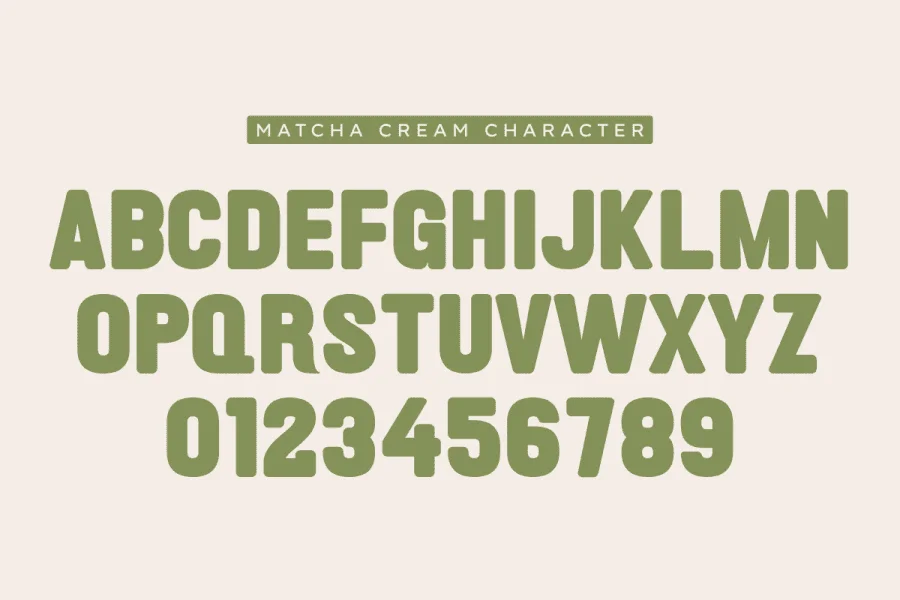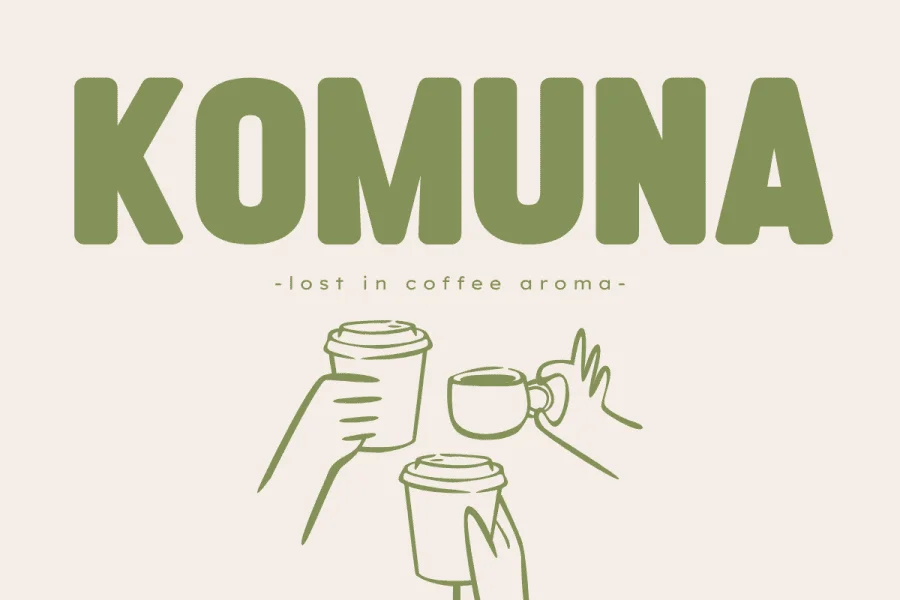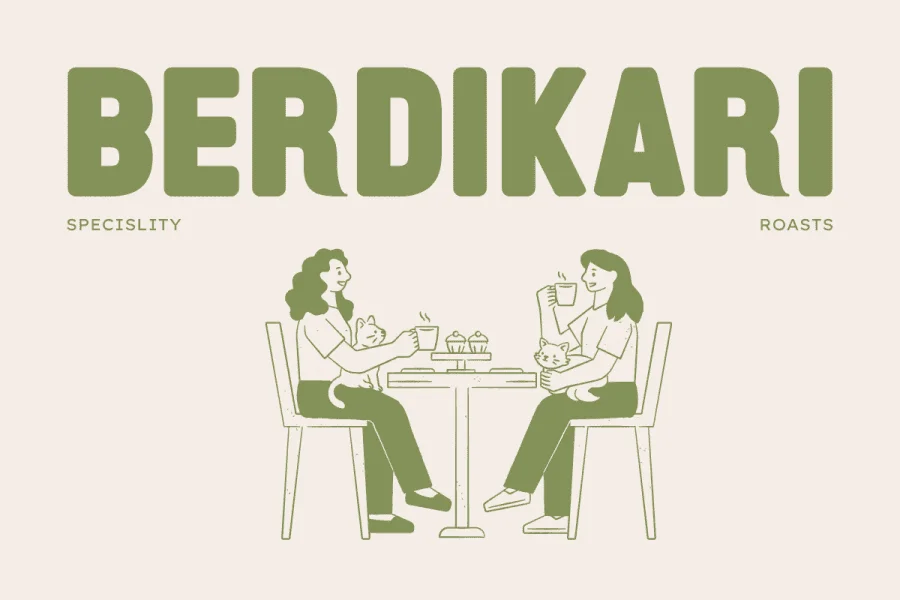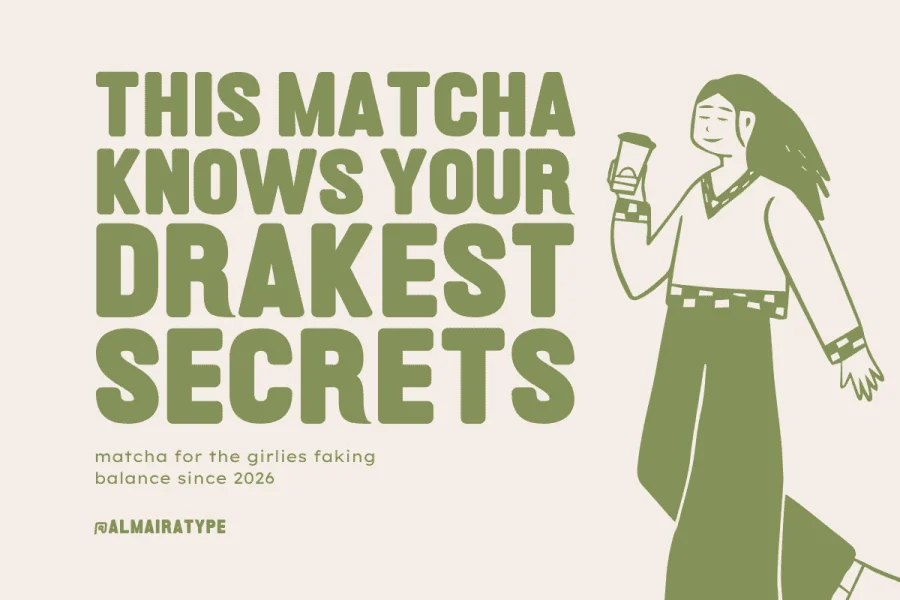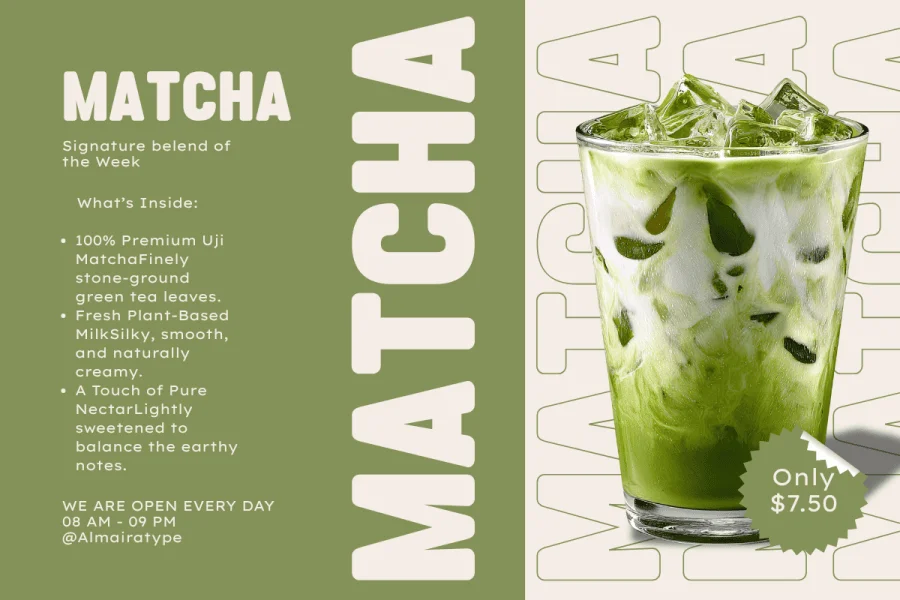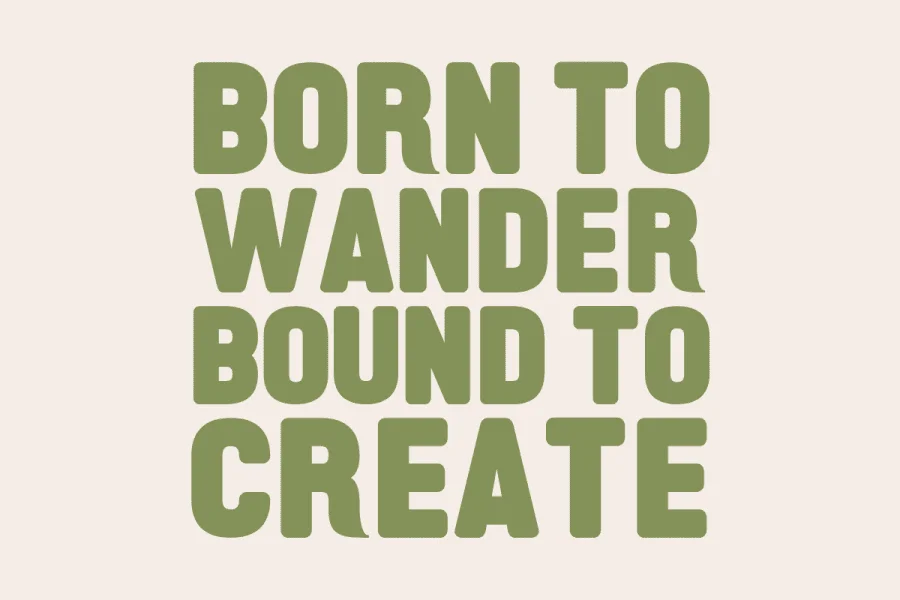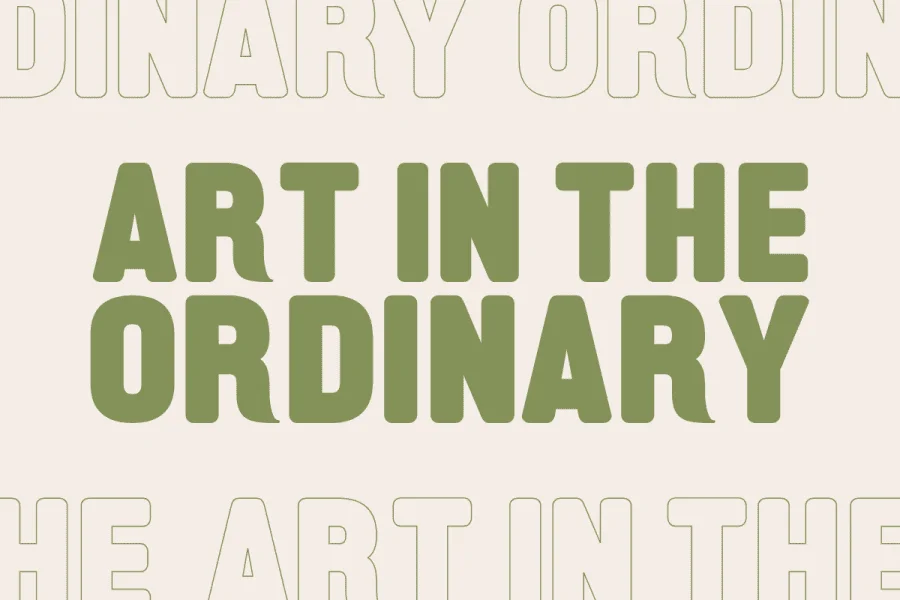
Matcha Cream is a bold, condensed sans-serif typeface that blends retro warmth with a solid, structural presence. Its letterforms feature a low-contrast, near-monoline stroke weight that gives each character a robust and uniform texture. The defining characteristic of this display face lies in its softened, rounded terminals and corners, which temper its compact, upright posture with a friendly, approachable demeanor. The tight letter-spacing and condensed proportions create a dense, rhythmic visual cadence that is highly impactful in all-caps settings.
This typeface is exceptionally suited for lifestyle branding, particularly within artisanal coffee shops, matcha latte packaging, and organic food design. Its friendly yet commanding presence makes Matcha Cream an excellent choice for prominent display headers, cafe menus, promotional posters, and social media graphics that require a touch of vintage charm and modern simplicity.